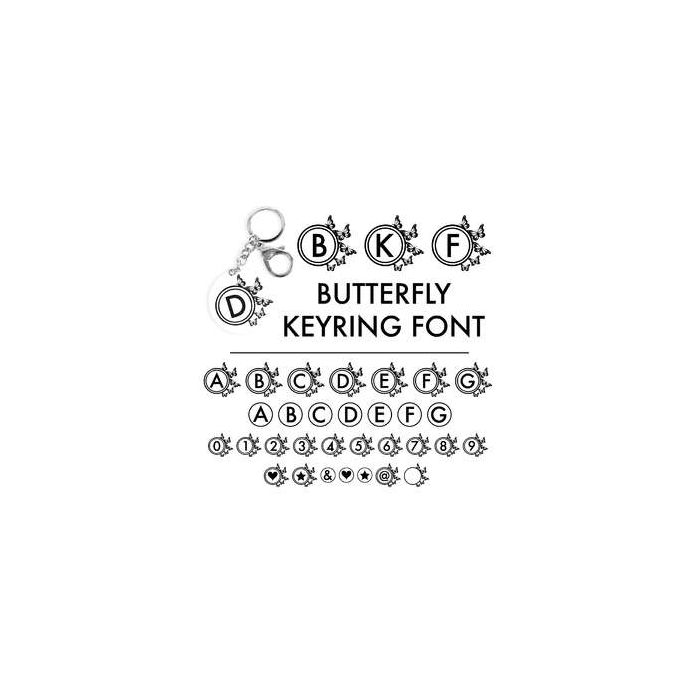
Butterfly Keyring Font - Contains 26 Circle Butterfly monogram Initials (allocated to uppercase letters), 26 Plain Monogram Initials (allocated to lowercase letters), Butterfly Monogram Numbers and Characters as well as a plain Butterfly Monogram Frame perfect for use on Circular Keyrings (or other items!). All Special characters are allocated to keys and available through the character map / glyphs panel.